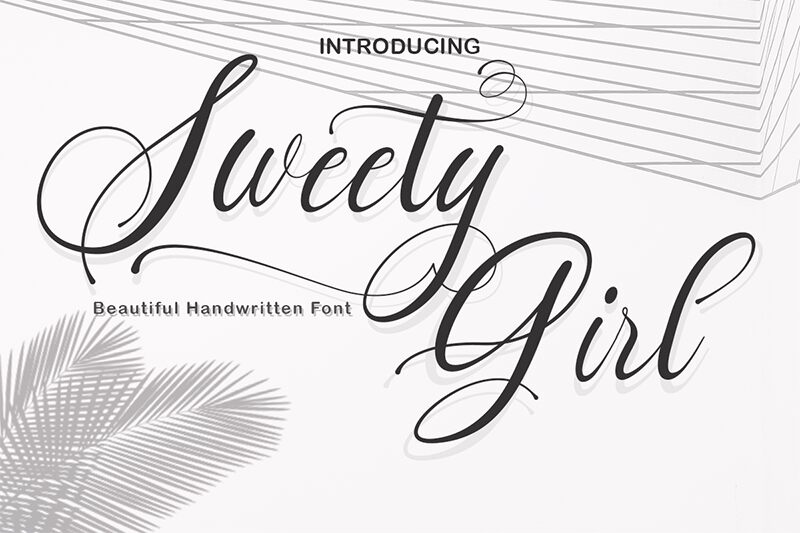
Sweety Girl
Sweety Girl font is a calligraphy font by Agus Abdurrokhim that showcases an elegant and expressive feel. Its flowing design combines a romantic and modern script style with sophisticated and soft curves. Each type character has its own artistic side so readers can equally enjoy legibility and originality.
A free calligraphy font, Sweety Girl is ideal for wedding cards, apparel design, restored shop signs, logotypes, book covers for novels or poetry collections, elegant watermarks on photography or painting artworks, invitations including RSVP cards, classroom posters for teachers, journals of all types including diaries or professional projects.